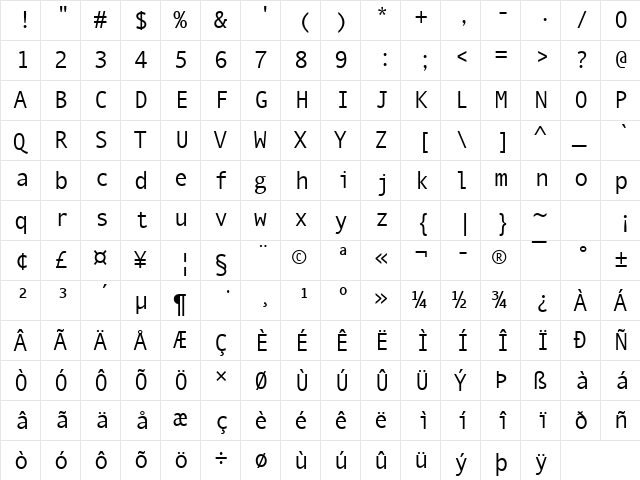
QuickType II Mono Regular
Design Context for QuickType II Mono Typeface
QuickType II Mono brings the precise, column-aligned rhythm of monospaced typography to designs that value technical clarity and systematic order.
Well-suited to data-driven dashboards, coding tutorials, and any design that wants to reference the world of programming.
Pro Tip: Use QuickType II Mono with slightly increased line-height for extended reading — fixed-width spacing can feel dense in longer passages without extra breathing room.